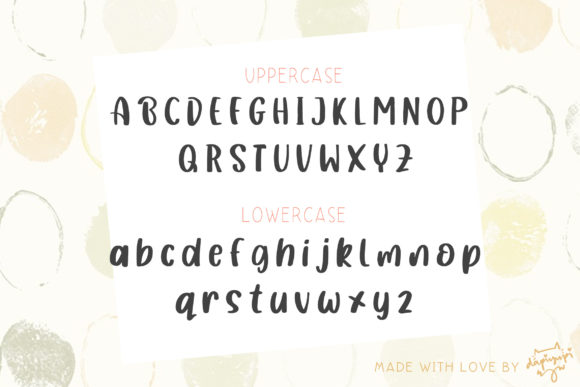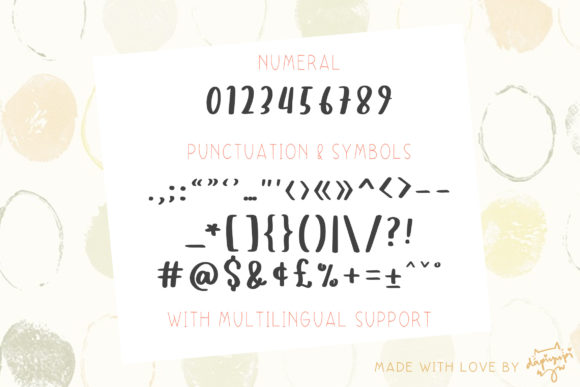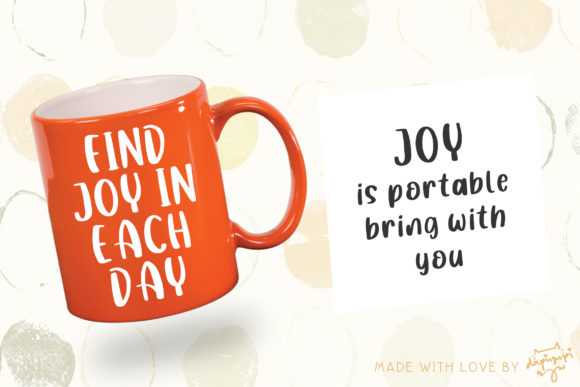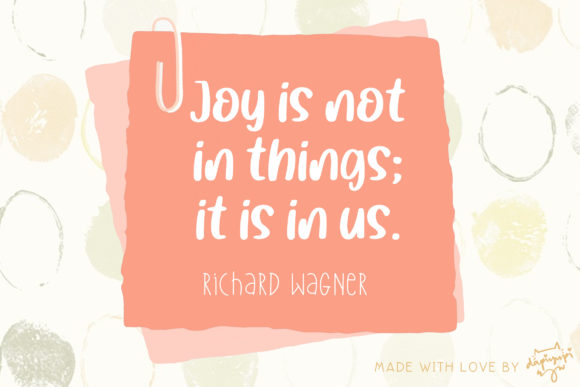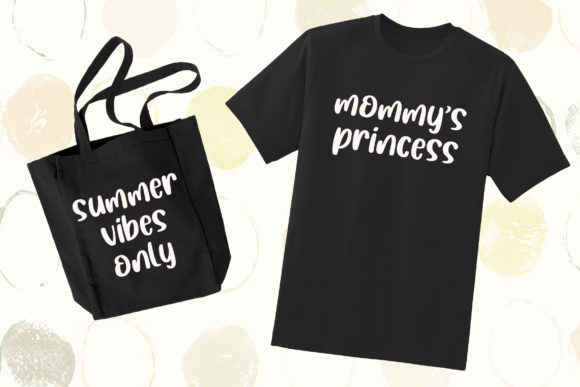
Introducing Arnold Font: The Cute and Quirky Handwritten Typeface
Are you tired of using the same old boring fonts in your designs? Look no further! Arnold Font is here to add a touch of sweetness and playfulness to your creations. This adorable handwritten font is perfect for designers and crafters who want to elevate the look of their products, from packaging to business cards, and more!
What Makes Arnold Font So Special?
Arnold Font is a unique and charming typeface that is sure to capture the attention of your audience. Its cute and quirky handwritten style gives it a personal touch that is hard to resist. Whether you’re designing a product label, a business card, or a social media graphic, Arnold Font is the perfect choice to add a dash of personality to your work.
Key Features of Arnold Font
- Cute and Quirky: Arnold Font has a playful and whimsical feel that is sure to delight your audience.
- Handwritten Style: The font’s handwritten style gives it a personal and human touch that is perfect for designs that need a bit of personality.
- Versatile: Arnold Font can be used for a wide range of designs, from product packaging to business cards, and more.
- Elegant and Refined: Despite its playful nature, Arnold Font has an elegant and refined quality that makes it suitable for a variety of design applications.
Uses for Arnold Font
Arnold Font is a versatile typeface that can be used for a wide range of design applications. Here are a few ideas to get you started:
- Product Packaging: Add a touch of personality to your product packaging with Arnold Font. It’s perfect for labels, tags, and other packaging materials.
- Business Cards: Stand out from the crowd with Arnold Font on your business cards. Its unique style is sure to make a lasting impression.
- Social Media Graphics: Add a dash of personality to your social media graphics with Arnold Font. It’s perfect for creating engaging and shareable content.
- Stationery: Use Arnold Font to add a touch of whimsy to your stationery, including letters, notes, and journals.
Tips for Using Arnold Font
Here are a few tips for getting the most out of Arnold Font:
- Pair it with Other Fonts: Arnold Font pairs well with other fonts, so don’t be afraid to experiment with different combinations.
- Use it in Moderation: While Arnold Font is cute and playful, it can be overwhelming if used too much. Use it in moderation to create a balanced design.
- Experiment with Colors: Arnold Font looks great in a variety of colors, so don’t be afraid to experiment with different color schemes.
Arnold Font is a unique and charming typeface that is sure to add a touch of personality to your designs. Its cute and quirky handwritten style makes it perfect for a wide range of design applications, from product packaging to business cards, and more. With its versatility and elegance, Arnold Font is a must-have for designers and crafters looking to elevate their designs.